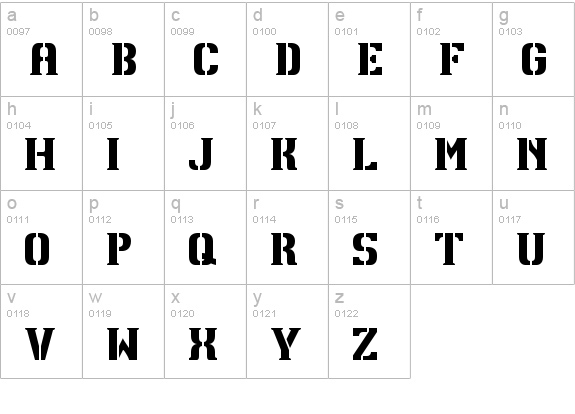
TPF U13 Font Details
Introducing TPF U13, a stunning font that captures the essence of elegance and modernity. This typeface exudes a unique charm, making it perfect for a wide range of design projects. With its clean lines and sleek curves, TPF U13 is a true testament to the beauty of simplicity. What sets TPF U13 apart is not only its captivating aesthetics but also its accessibility. This font is freely available to download at FontsMarket.com, making it an ideal choice for both personal and commercial ventures. Whether you're designing a logo, creating a brand identity, or enhancing your website's typography, TPF U13 offers endless possibilities. The versatility of TPF U13 shines through in its ability to adapt to various design contexts. Its legibility ensures that your message is conveyed clearly, while its contemporary style adds a touch of sophistication to any project. Whether used for headlines, body text, or even as an accent font, TPF U13 effortlessly elevates the visual appeal of your designs. TPF U13's extensive character set includes a multitude of glyphs and symbols, allowing you to express yourself creatively and cater to a diverse range of design needs. Its seamless compatibility with various design software and platforms further enhances its user-friendly nature, ensuring a smooth and hassle-free experience for designers of all skill levels. Download TPF U13 for free at FontsMarket.com and unlock a world of possibilities. Experience the seamless blend of elegance and modernity that this font has to offer. With TPF U13, your designs will truly stand out from the crowd, leaving a lasting impression on viewers and captivating their attention. Embrace the beauty of this font and let your creativity flow freely.